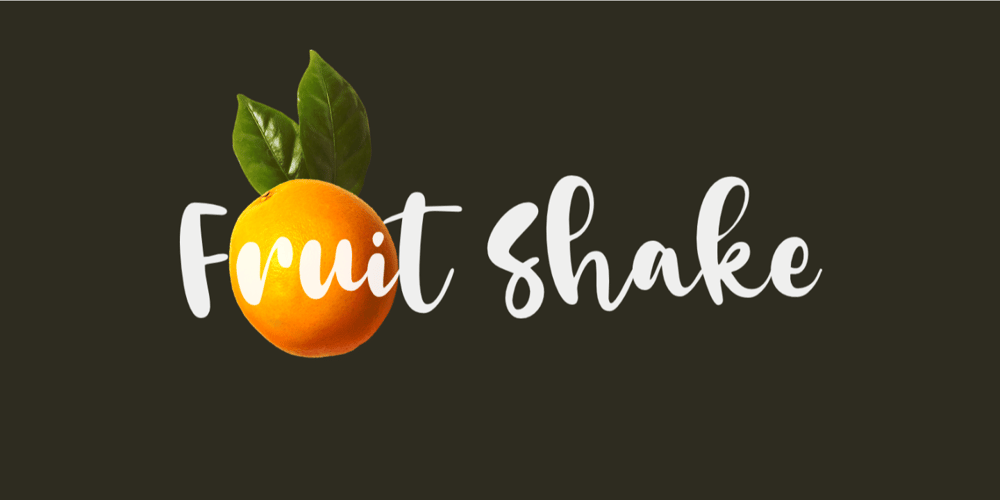
Fruit Shake
Fruit Shake font
Fruit Shake Font Family was designed by Aldy Sidik and published by Epiclinez. Fruit Shake contains 1 styles and family package options. Fruit Shake is a smooth and bold script font with a relaxed theme, featuring a lovely style. No matter the topic, this font will be an incredible asset to your fonts’ library, as it has the potential to elevate any design.So what’s included: Basic Latin, numbers, symbols, punctuations, and ligatures Simple Installations: works on PC & Mac Multilingual Support includes Afrikaans Albanian Catalan Danish Dutch English Estonian Finnish French German Italian Norwegian Portuguese Spanish Swedish Zulu. Accented Characters : ÀÁÂÃÄÅÆÇÈÉÊËÌÍÎÏÑÒÓÔÕÖØŒŠÙÚÛÜŸÝŽàáâãäåæçèéêëìíîïñòóôõöøœšùúûüýÿžß Accessible in Adobe Illustrator, Adobe Photoshop, Adobe InDesign, even works on Microsoft Word PUA Encoded and fully accessible without additional design software Thank you! We hope you enjoy our font!